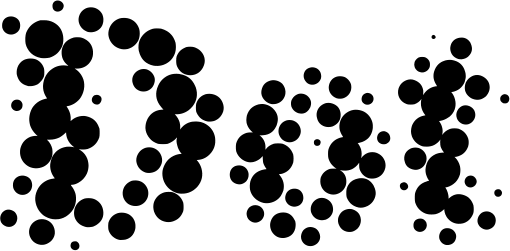
Dot Font
Out of thousands of websites and hundreds of different logos, the audience chooses only the visually appealing ones. You only have a few seconds to get the reader’s attention. By using Dot you can achieve your goals and increase the efficiency of your content.
Dot is a distorted font that has a very special and creative design. This font conveys a sense of variety and freshness to the audience and is very suitable for producing content for web pages.